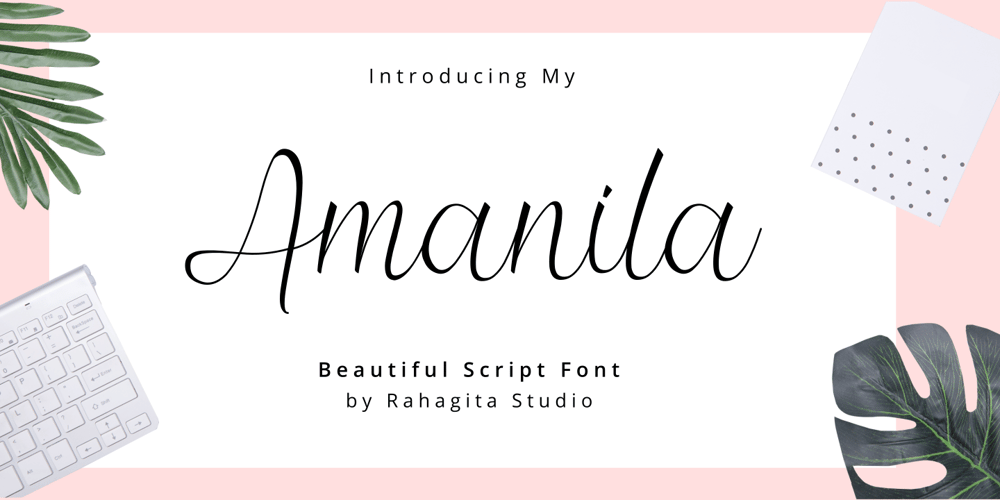
Amanila
Amanila font
Amanila Font Family was designed by Setiadi Rahagita and published by RahagitaType. Amanila contains 1 styles and family package options. Amanila simplifies elegance into one truly outstanding handwritten font. This font is the perfect fit for all of your logos, branding, social media, and crafty DIY projects.